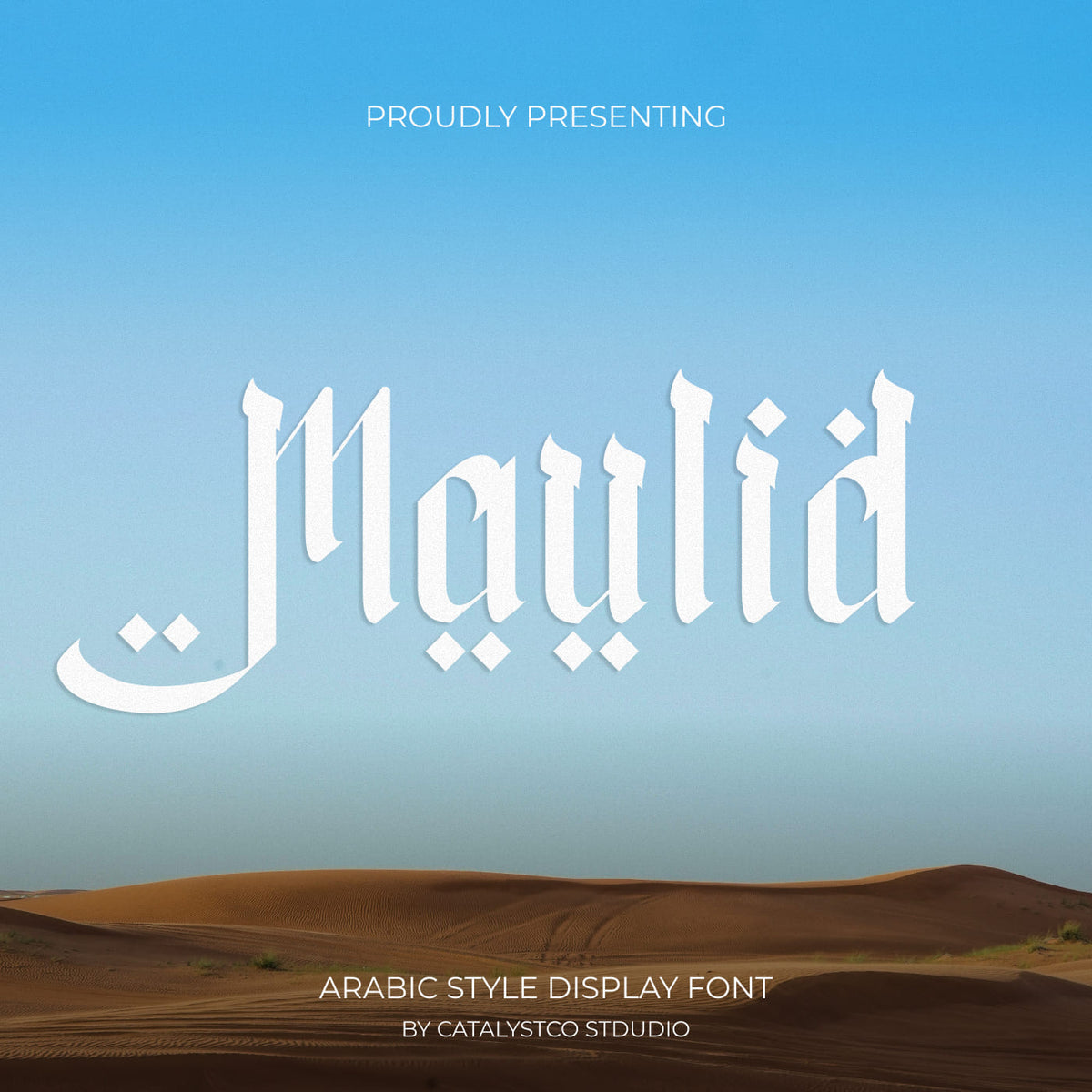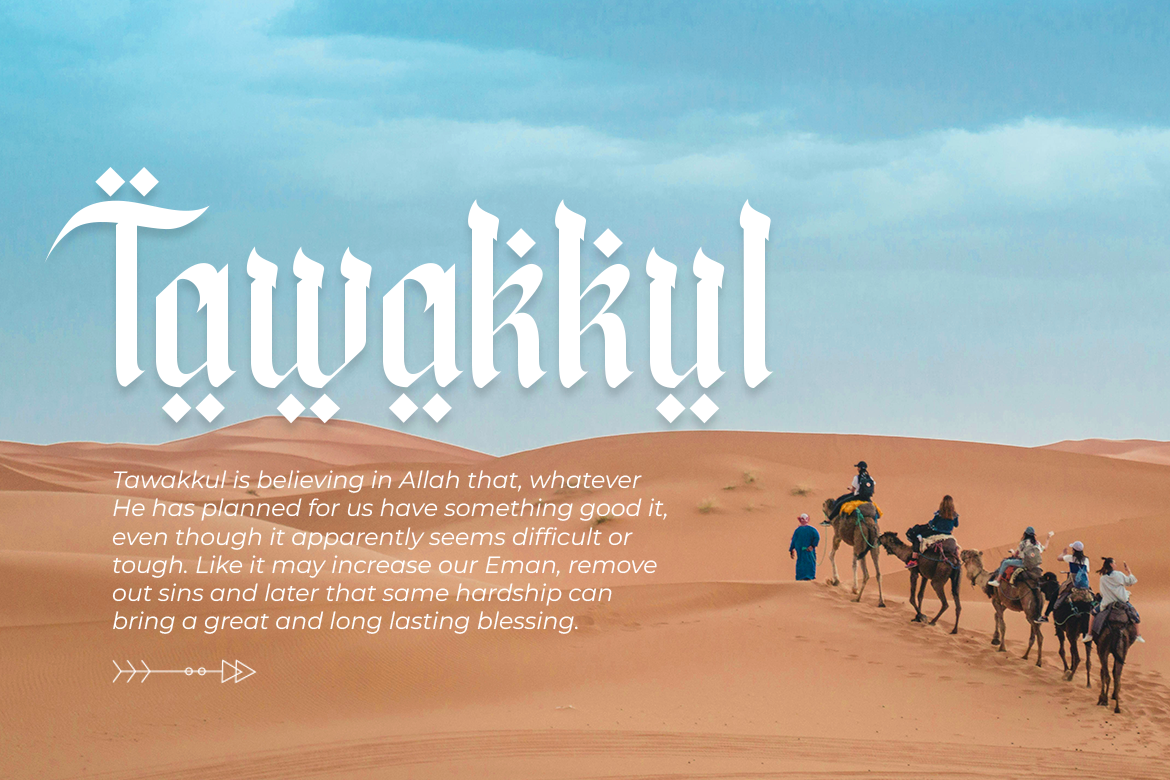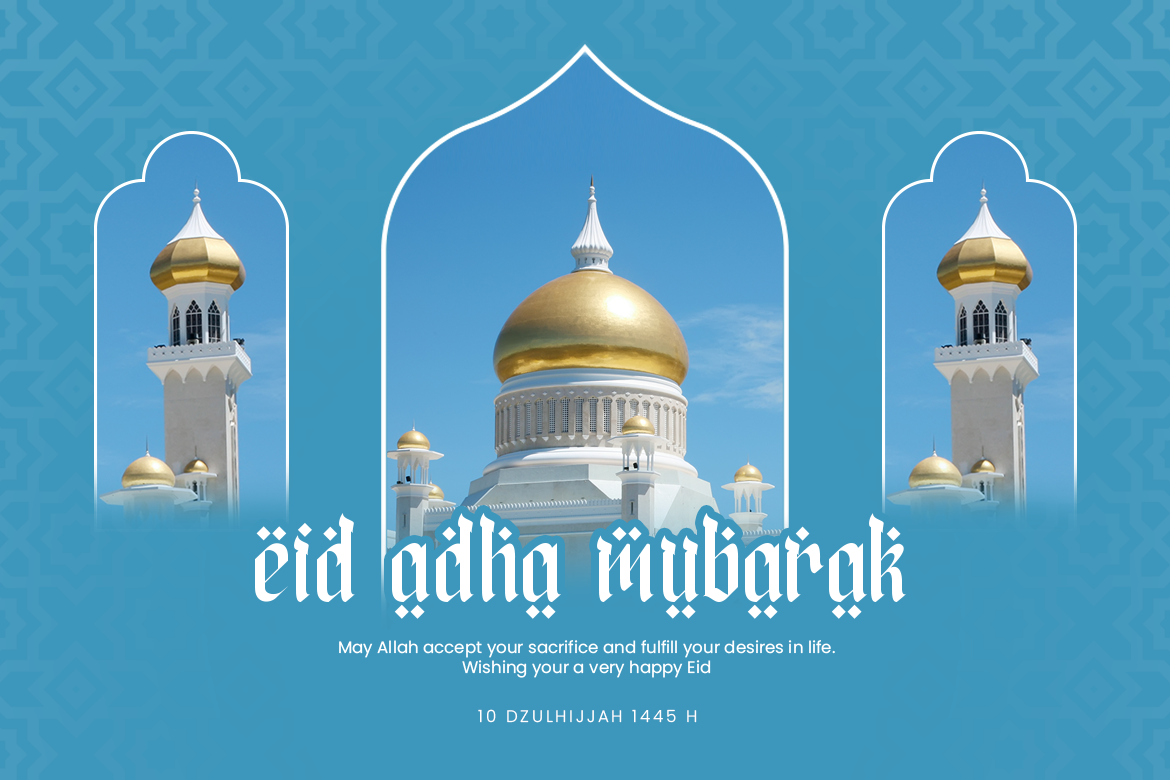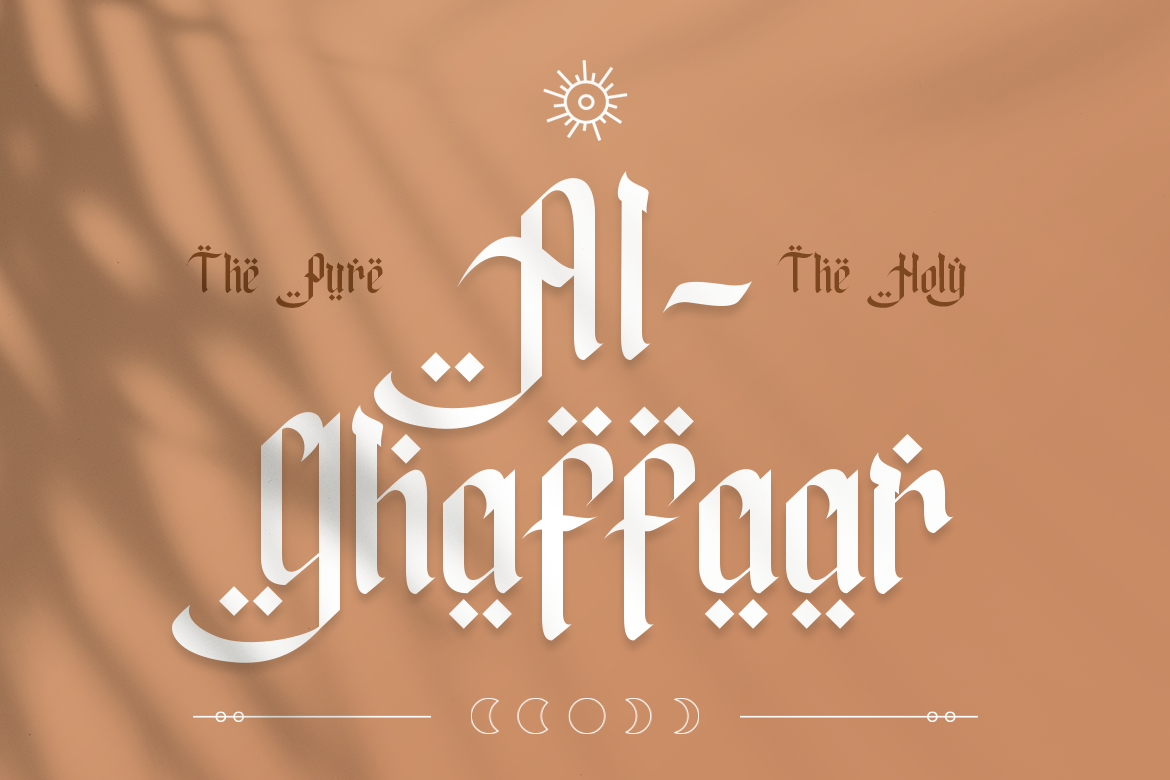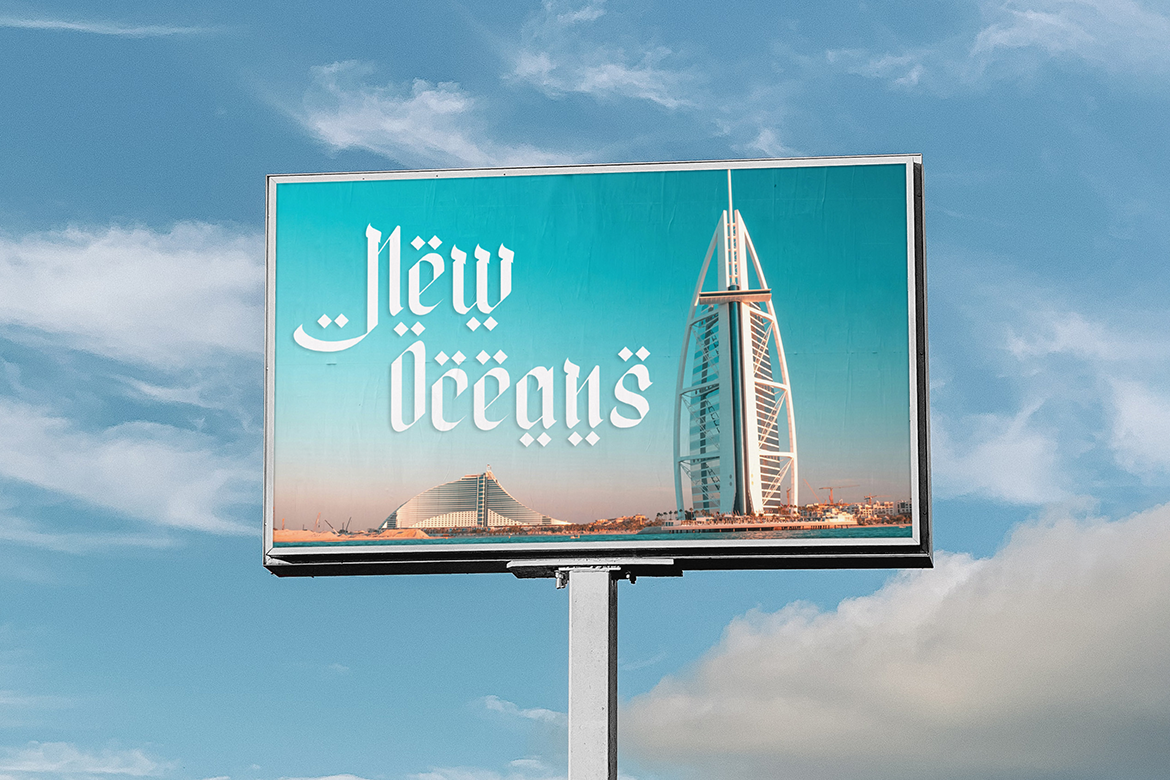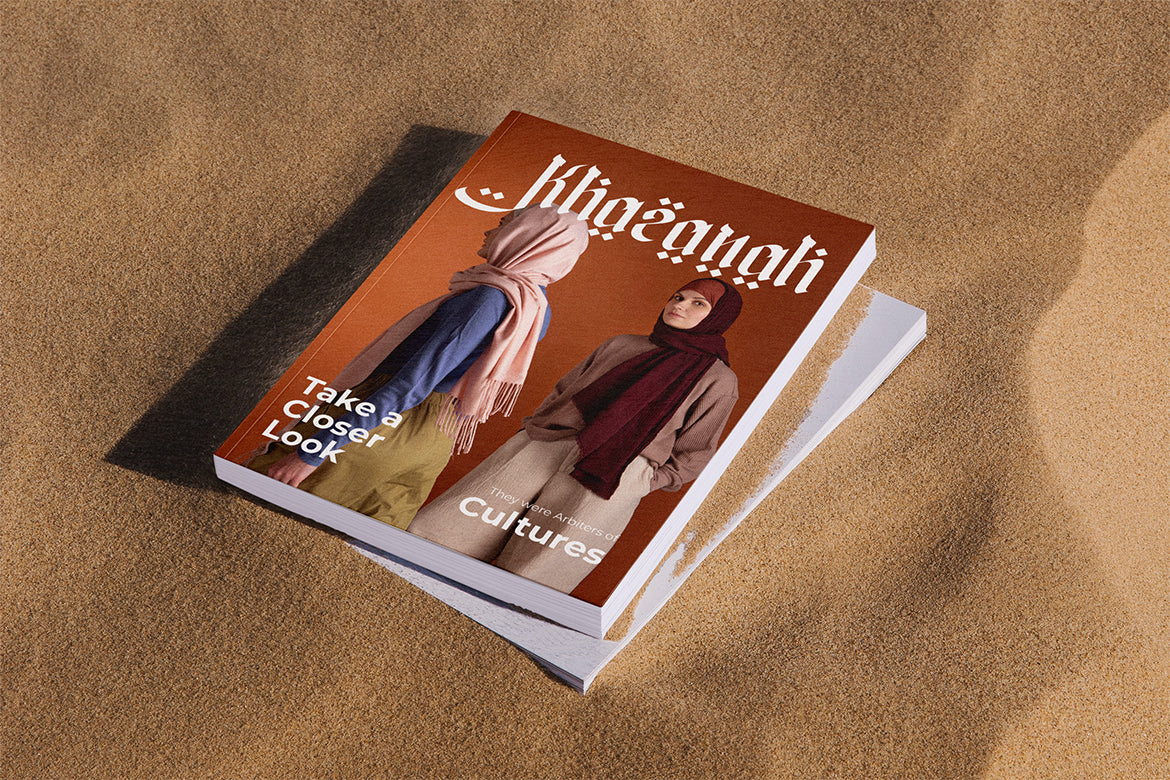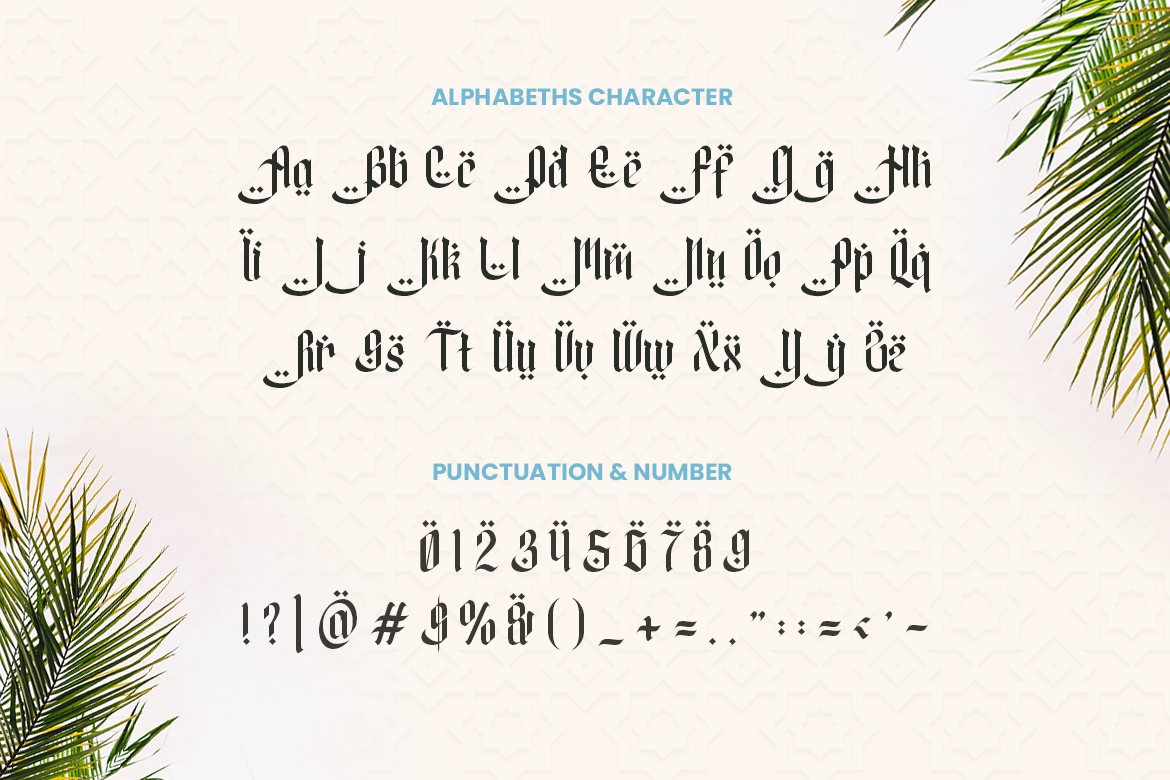
Maulid Arabic Style Display Font
Maulid is an Arabic-style display font that blends the elegance of traditional Middle Eastern calligraphy with the strength of modern blackletter structure. Its tall, condensed forms, ornamental terminals, and ceremonial shapes create a sophisticated visual identity inspired by ancient script and cultural aesthetics. Designed as a bold decorative typeface, it works beautifully for luxury branding, celebration posters, headings, and expressive artistic compositions. Its unique fusion of Arabic rhythm and gothic structure gives Maulid a distinguished look that feels both modern and timeless.
Perfect for branding identities, ceremonial posters, cultural event designs, Ramadan & Eid visual themes, luxury packaging, professional headline layouts, book covers, logo typography, celebration graphics, and any creative project that requires a sophisticated Arabic-inspired blackletter aesthetic.
Maulid is an Arabic-style display font combining traditional Middle Eastern calligraphy with modern blackletter structure, featuring tall, condensed forms and ornamental terminals. It includes uppercase and lowercase letters, numerals, and punctuation, available in TTF, OTF, and WOFF formats.